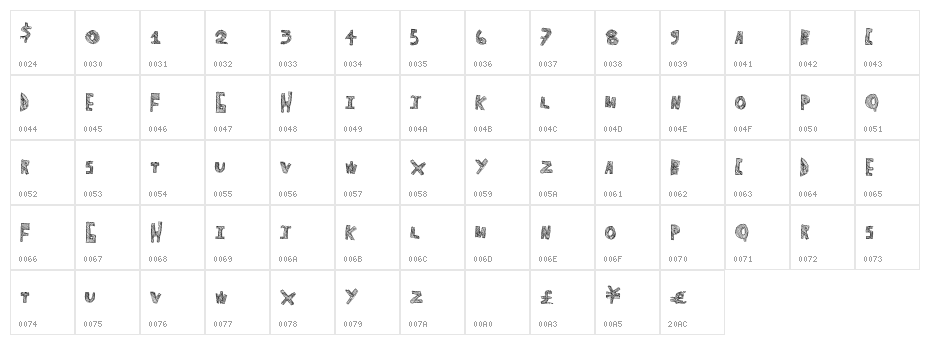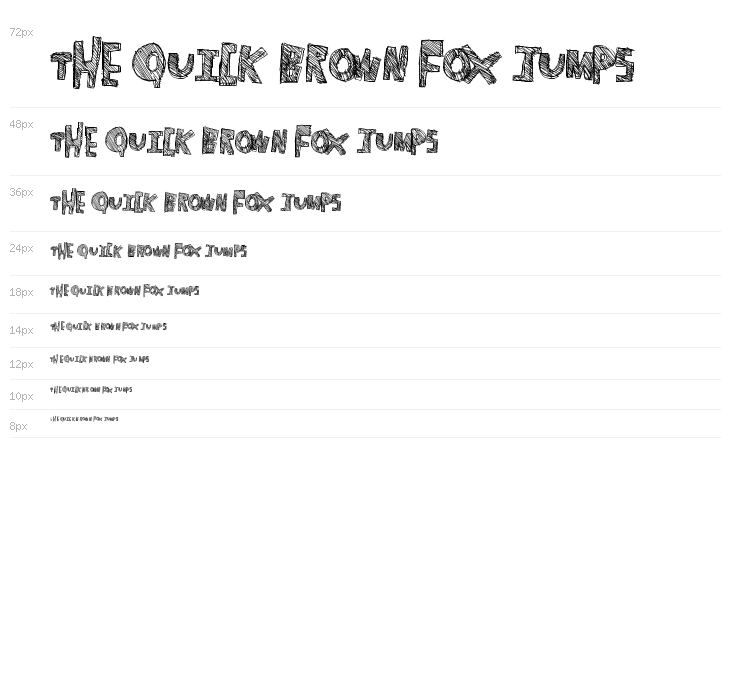
SchoolNotes Font
SchoolNotes Description
This font features a playful, hand-drawn style that mimics the look of doodles or sketches in a notebook. Each character is filled with intricate, cross-hatched lines, giving it a textured appearance. The letters are bold and slightly irregular, adding to the casual and informal feel. The numbers and special characters maintain the same sketchy style, ensuring consistency across the font. This design evokes a sense of creativity and spontaneity, making it ideal for projects that aim to capture a youthful or artistic vibe.
| Overall Style | Playful, Artistic |
| Use Case | Headlines, Posters, Creative Projects |
| Proposed Projects | Ideal for school projects, children's books, creative posters, or any design needing a fun, informal touch. |